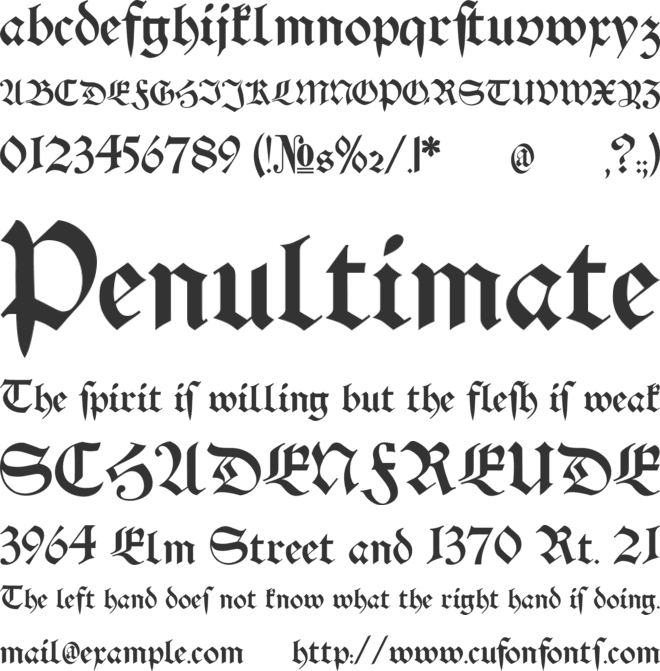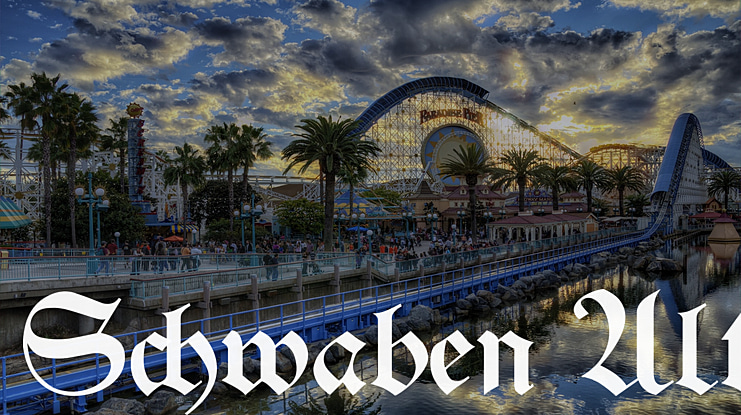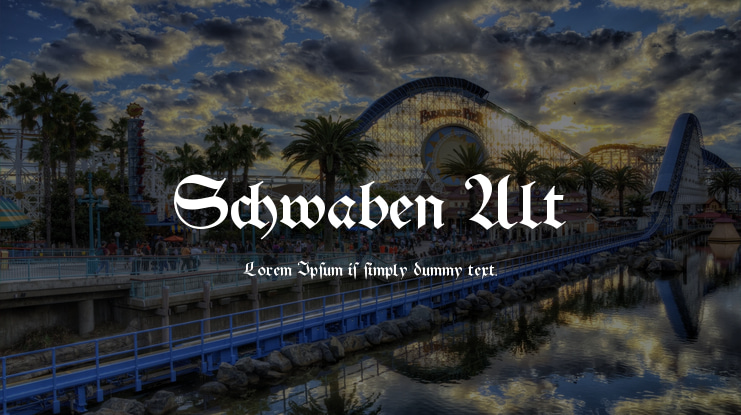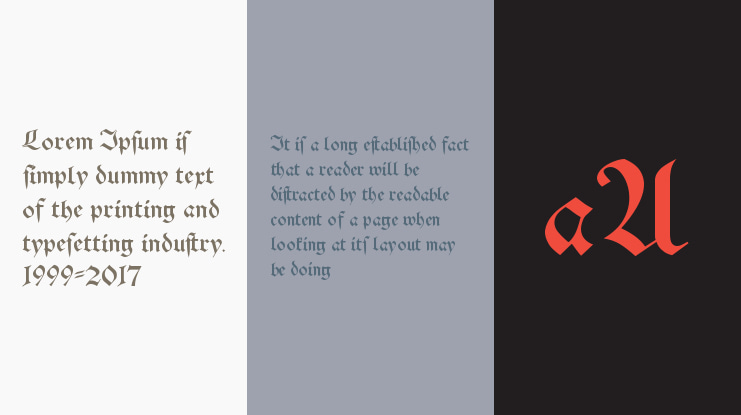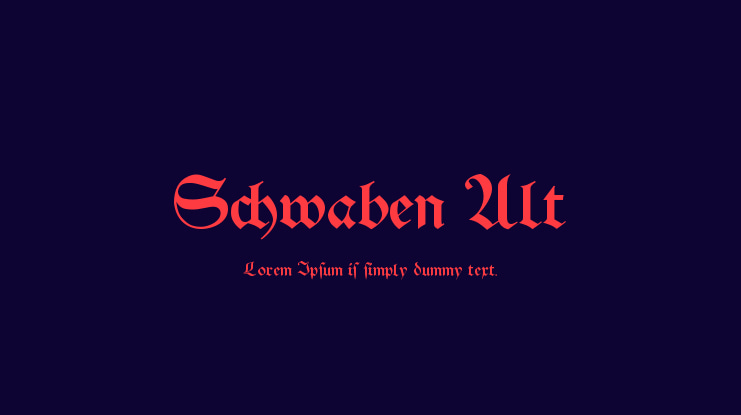
Schwaben Alt Font
Peter Wiege
A German 1890's style blackletter-font with middle- and end-s, a lot of ligatures and some special characters often used in these days printings